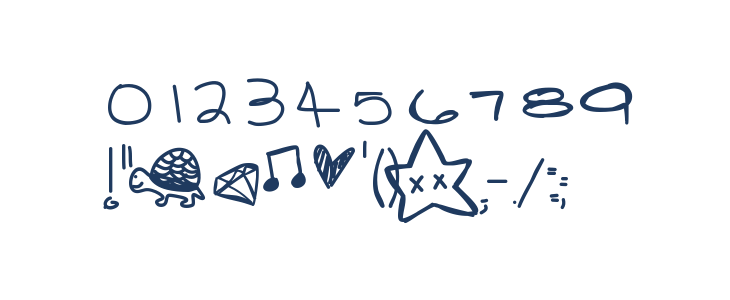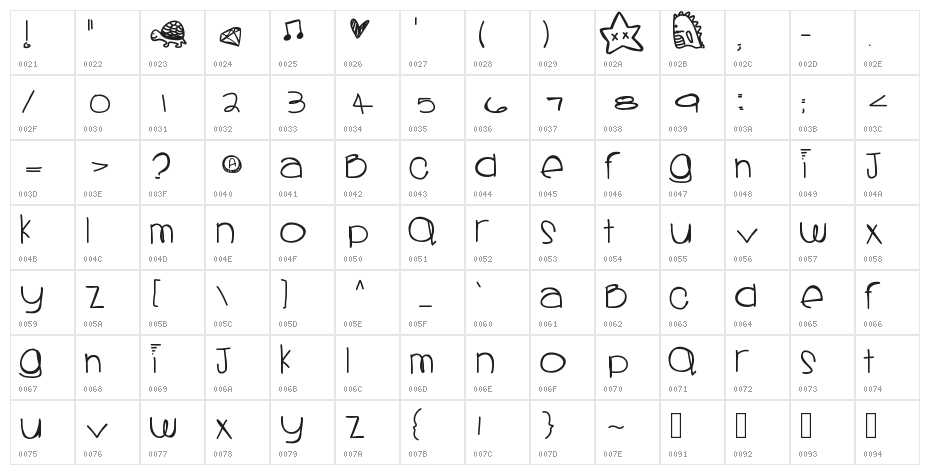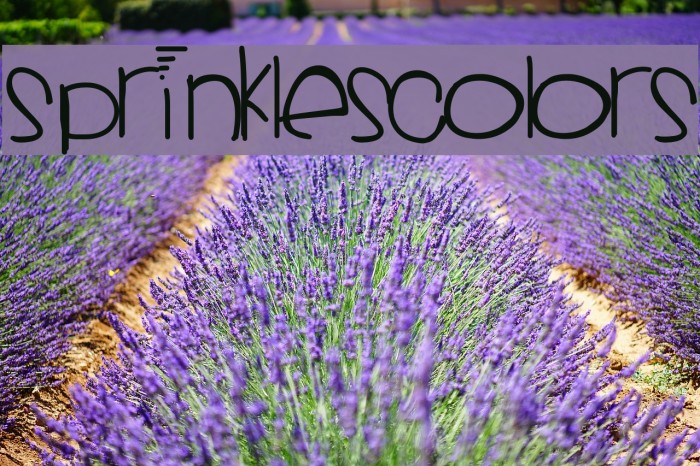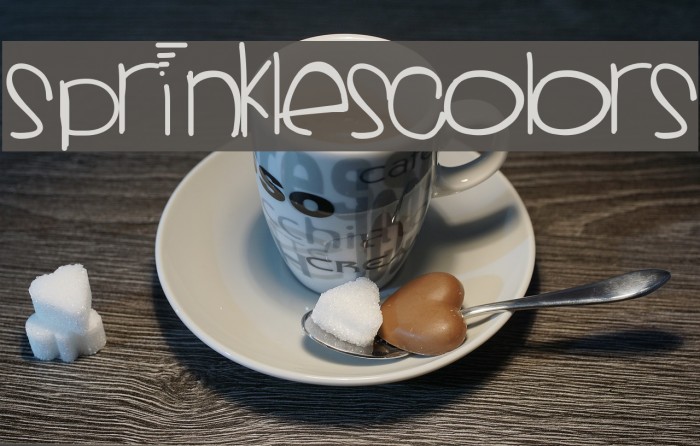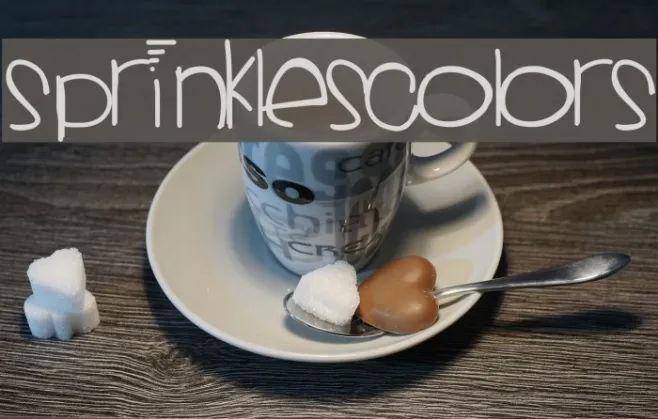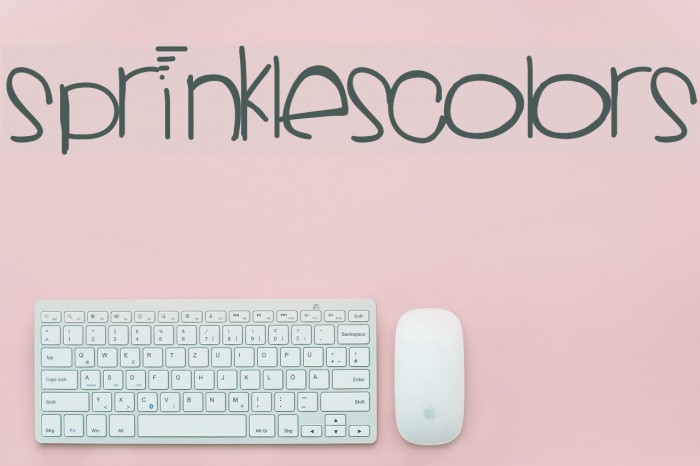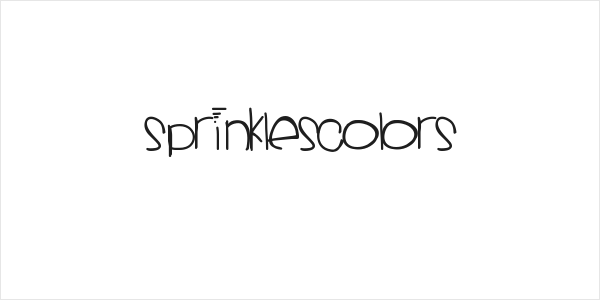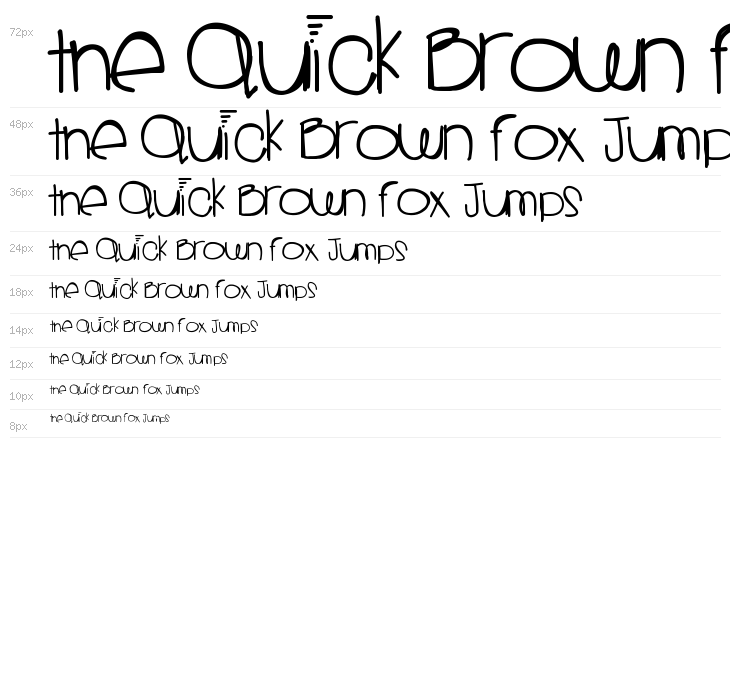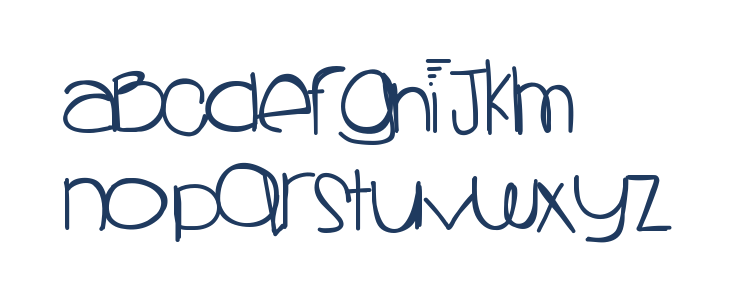
Sprinklescolors Font
Sprinklescolors Description
This playful and whimsical font features a hand-drawn aesthetic with a casual, informal style. The characters are slightly irregular, giving it a charming and quirky look. The uppercase and lowercase letters maintain a consistent flow, with rounded edges and a friendly appearance. Numbers and special characters are equally playful, adding to the font's overall fun and lighthearted vibe. The font's unique personality makes it ideal for projects that require a touch of creativity and individuality.
| Proposed Projects | Ideal for children's books, greeting cards, playful branding, and creative posters. |